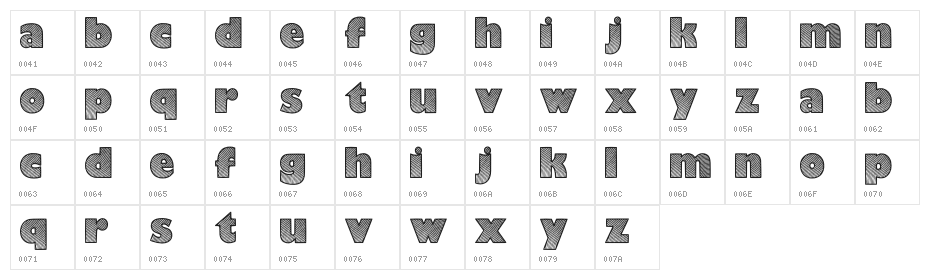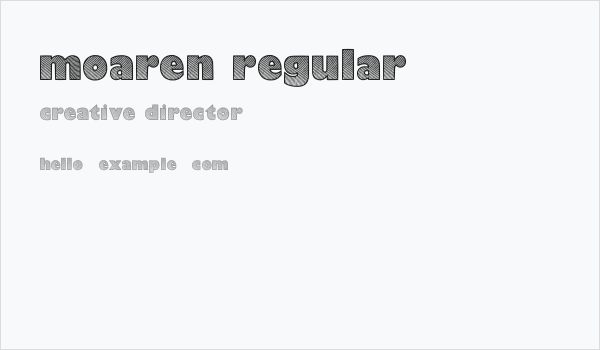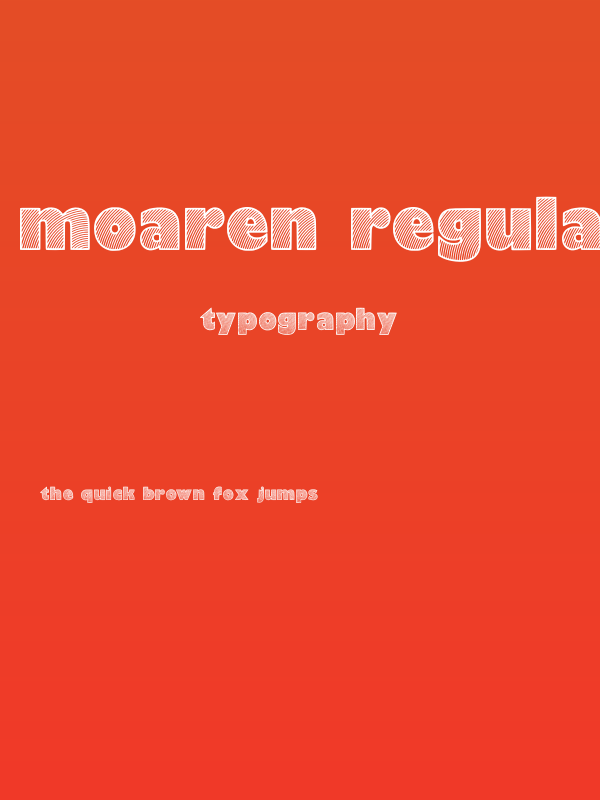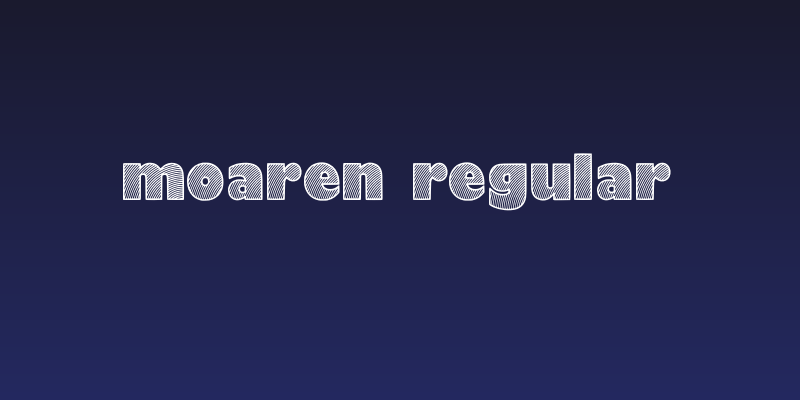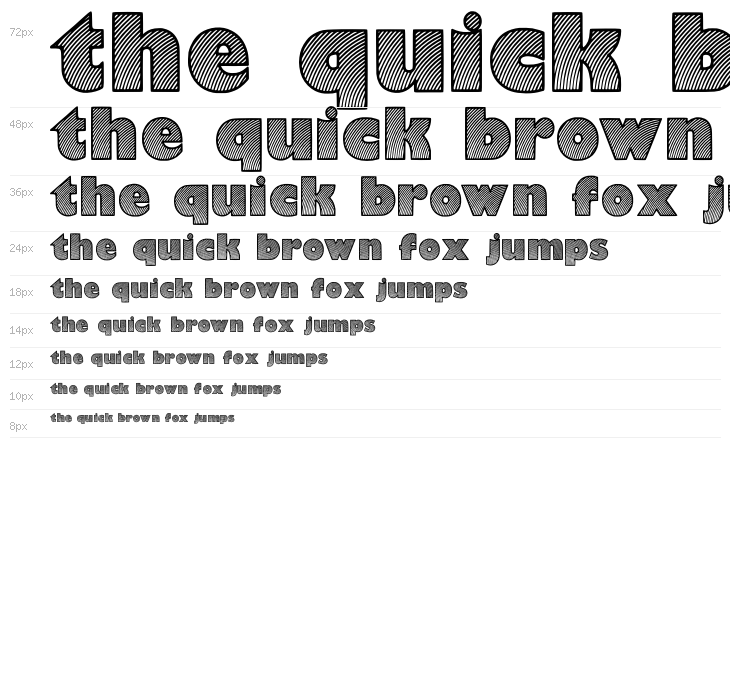
Moaren Regular Font
Moaren Regular Description
This font features a bold, decorative style with a unique striped pattern filling each character. The letters are thick and have a playful, artistic flair, making them stand out in any design. The consistent pattern within each letter adds a sense of texture and depth, while the overall shape remains clear and legible. The font's boldness is balanced by its decorative elements, creating a harmonious and eye-catching appearance. It is well-suited for creative projects that require a distinctive and engaging typeface.
| Proposed Projects | Ideal for posters, branding, headlines, and any project needing a bold, artistic touch. |